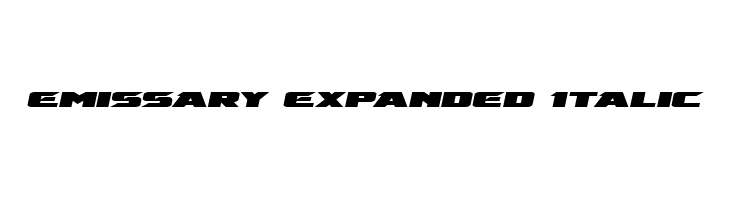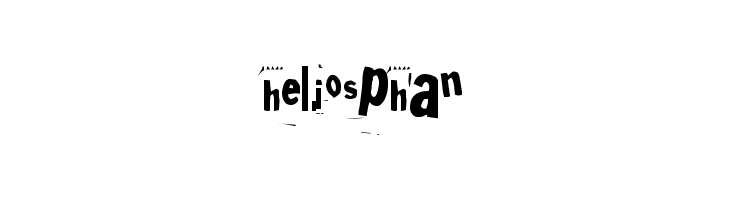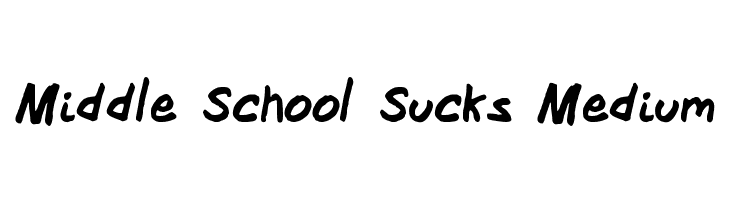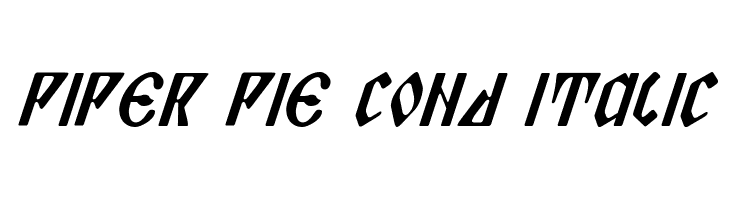
( Matthew Swank - www.behance.net/mtswank )
A modern, geometric sans-serif font with clean lines and uniform strokes.
( Fonts by notfon1234 )
A bold, playful handwritten font with a casual and youthful style.
A bold, condensed italic font with sharp angles and dynamic style.
A bold, italic, and expanded font with a futuristic and dynamic style.
A bold, modern italic font with a dynamic and energetic style.
A bold, textured font with a rugged, distressed appearance.
( Valentin François - www.valentinfrancois.fr )
A geometric, modern font with clean lines and a minimalist aesthetic.